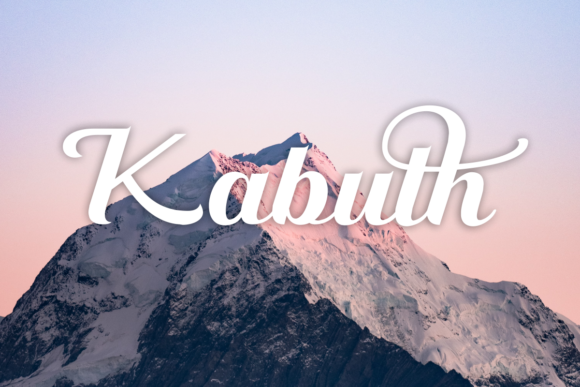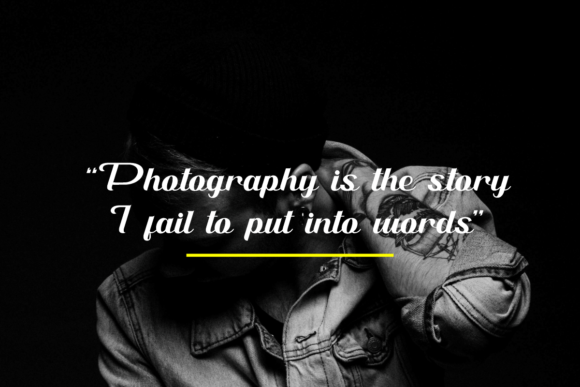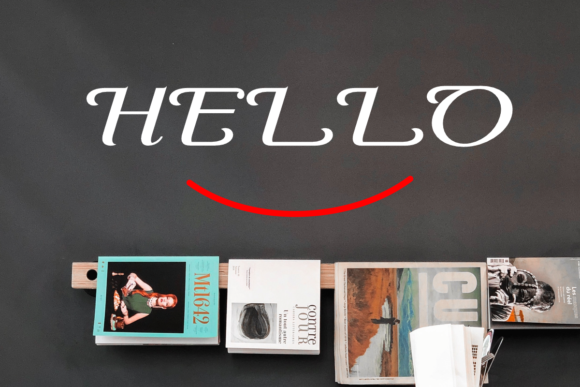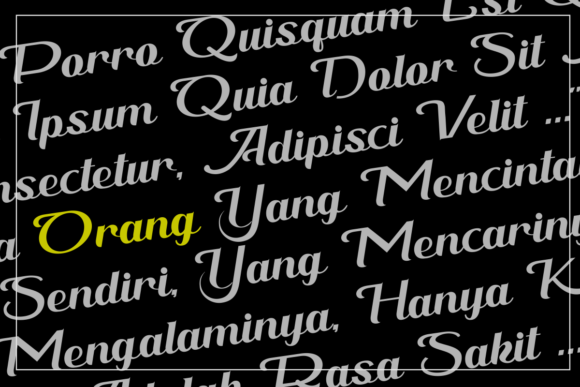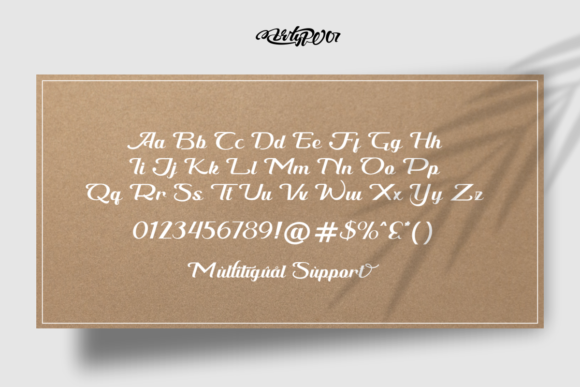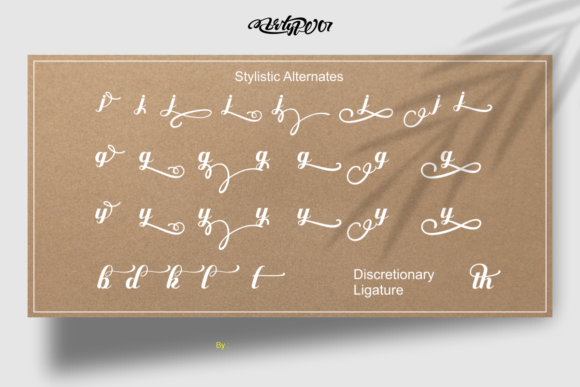
Cathena Font: Elevate Your Designs with a Touch of Luxury
In the world of typography, fonts play a crucial role in conveying the tone and personality of a design. For designers and crafters looking to add a touch of sophistication and elegance to their creative projects, the Cathena font is an excellent choice. This modern script font boasts sweet touches and beautiful curves, making it perfect for those seeking to make their designs stand out.
The Characteristics of Cathena Font
Cathena is a modern script font that exudes luxury and refinement. Its bold and flowing curves give it a distinctive look that can instantly elevate the aesthetic of any design. The font features:
- Beautiful Curves: Cathena’s curves are smooth and fluid, giving the font a sense of movement and elegance.
- Sweet Touches: The font’s subtle sweet touches add a layer of sophistication and charm, making it perfect for designs that require a touch of personality.
- Bold and Luxurious Style: Cathena’s bold style makes it perfect for headlines, titles, and other design elements that require a strong visual impact.
Why Choose Cathena Font?
With so many fonts available, why choose Cathena? Here are just a few reasons why designers and crafters are falling in love with this beautiful font:
- Versatility: Cathena can be used in a wide range of design projects, from branding and advertising to packaging and digital media.
- Elegance: The font’s luxurious style and beautiful curves make it perfect for designs that require a touch of sophistication.
- Readability: Despite its bold style, Cathena is highly readable, making it suitable for use in both digital and print designs.
How to Use Cathena Font in Your Designs
Adding Cathena font to your designs is easy. Here are a few tips to get you started:
- Pair it with Other Fonts: Combine Cathena with other fonts to create a unique and visually appealing typography.
- Use it for Headlines: Cathena’s bold style makes it perfect for headlines and titles.
- Experiment with Colors: Try using Cathena with different colors to add an extra layer of depth and interest to your designs.
Cathena font is perfect for designers and crafters who want to add a touch of luxury and sophistication to their creative projects. Whether you’re working on a branding project, creating digital media, or crafting beautiful print materials, Cathena is an excellent choice.
Some popular design projects that Cathena font is well-suited for include:
- Branding and Identity: Use Cathena to create stunning logos, business cards, and letterheads.
- Digital Media: Add Cathena to your website, social media graphics, or email marketing campaigns to make them stand out.
- Packaging: Use Cathena to create eye-catching packaging designs that showcase your brand’s personality.
In conclusion, Cathena font is a beautiful and luxurious script font that can elevate your designs to the next level. Its bold and flowing curves, sweet touches, and elegant style make it perfect for designers and crafters looking to add a touch of sophistication to their creative projects. With its versatility, readability, and stunning looks, Cathena is an excellent choice for anyone looking to make their designs stand out.